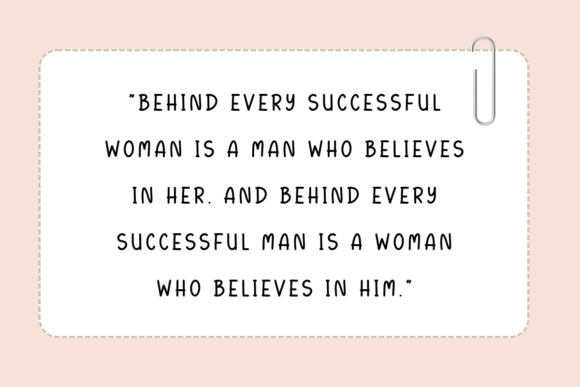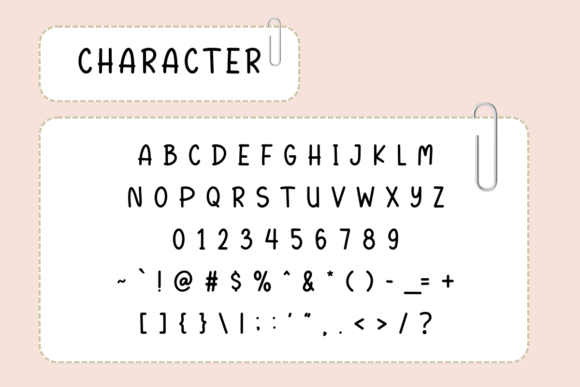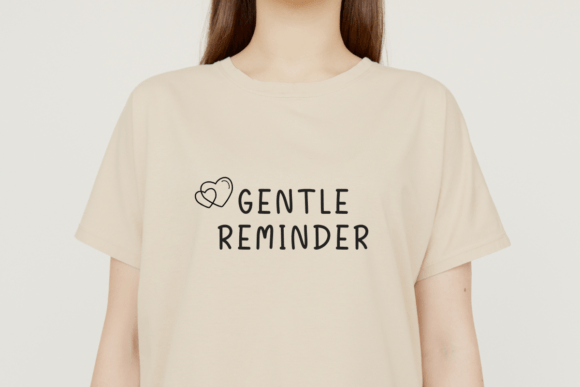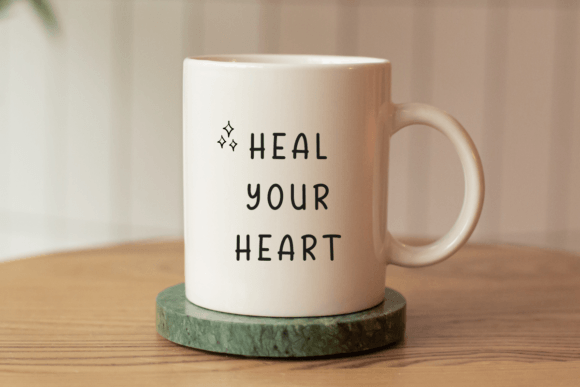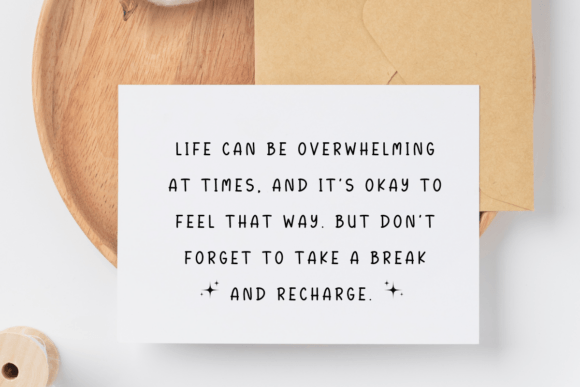
Cute Couple Font: The Perfect Choice for Romantic Designs
Are you looking for a font that can add a touch of warmth and charm to your designs? Look no further than the Cute Couple font! This adorable sans-serif font is perfect for romantic designs, wedding projects, or Valentine’s Day cards. Its soft, hand-drawn touch and rounded, playful letters make it a great choice for designers and crafters who want to create something special.
What is Cute Couple Font?
Cute Couple is a sans-serif font with a soft, hand-drawn touch. Its rounded, playful letters are designed to radiate warmth and charm, making it perfect for romantic designs. The font is versatile and can be used for a variety of projects, from wedding invitations and Valentine’s Day cards to social media graphics and blog posts.
Features of Cute Couple Font
- Soft, hand-drawn touch: The Cute Couple font has a soft, hand-drawn touch that gives it a warm and charming feel.
- Rounded, playful letters: The font features rounded, playful letters that are perfect for romantic designs.
- Versatile: The Cute Couple font is versatile and can be used for a variety of projects, from wedding invitations and Valentine’s Day cards to social media graphics and blog posts.
- Easy to read: The font is easy to read, making it perfect for designs that require a lot of text.
Why Choose Cute Couple Font?
There are many reasons why you should choose the Cute Couple font for your next project. Here are a few:
- Romantic feel: The Cute Couple font has a romantic feel that is perfect for wedding projects, Valentine’s Day cards, and other romantic designs.
- Unique: The font is unique and stands out from other sans-serif fonts.
- Pair with other fonts: The Cute Couple font pairs well with other sans-serif fonts and can be used in combination with them to create a unique look.
Project Ideas for Cute Couple Font
The Cute Couple font is perfect for a variety of projects, including:
- Wedding invitations: The font is perfect for wedding invitations and can add a touch of romance to your design.
- Valentine’s Day cards: The Cute Couple font is also perfect for Valentine’s Day cards and can help you create a romantic and heartfelt message.
- Social media graphics: The font can be used to create social media graphics that are perfect for romantic occasions.
- Blog posts: The Cute Couple font can also be used in blog posts to add a touch of warmth and charm to your writing.
The Cute Couple font is a great choice for designers and crafters who want to create romantic designs. Its soft, hand-drawn touch and rounded, playful letters make it perfect for wedding projects, Valentine’s Day cards, and other romantic designs. With its versatility, ease of use, and affordability, the Cute Couple font is a must-have for any designer or crafter.